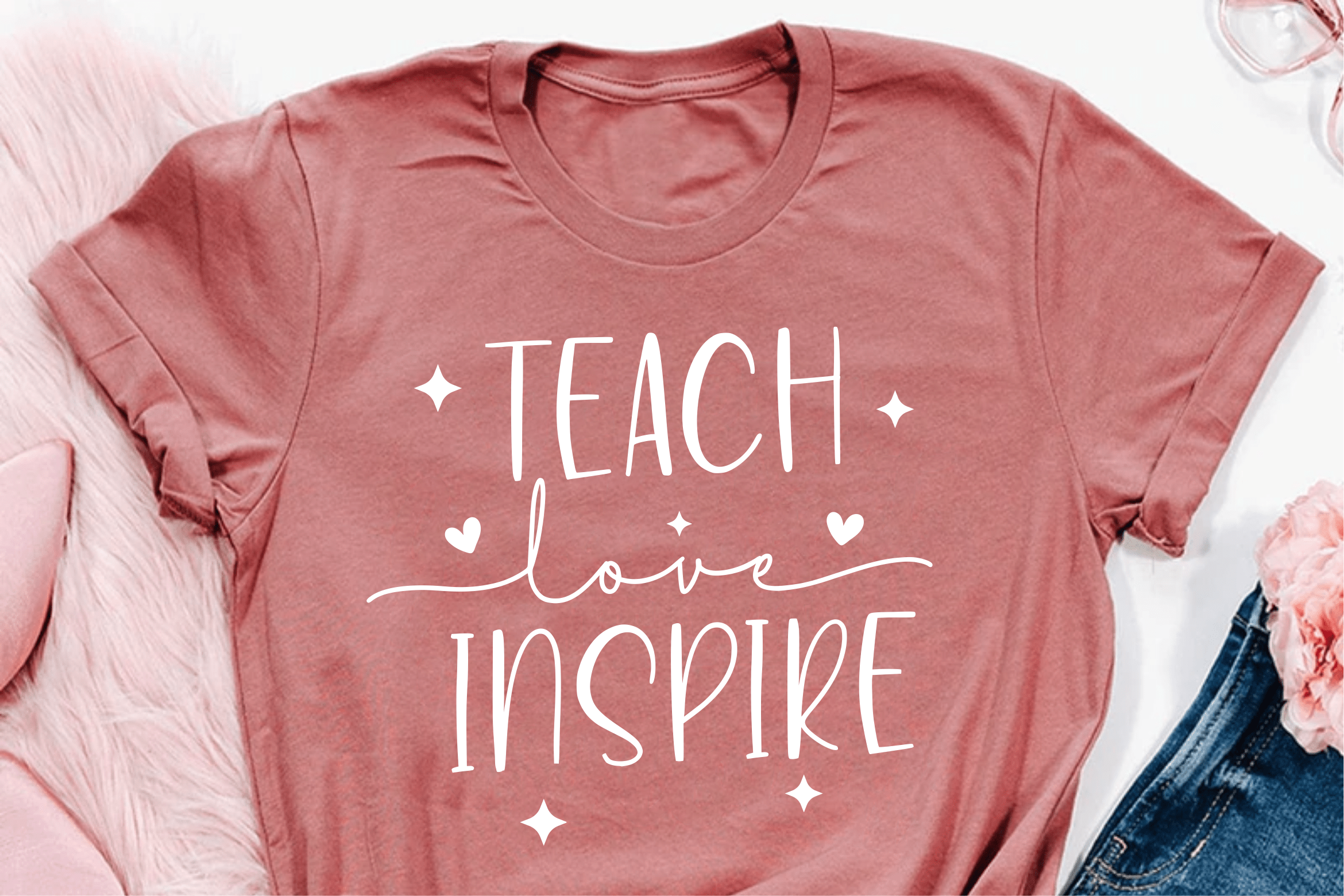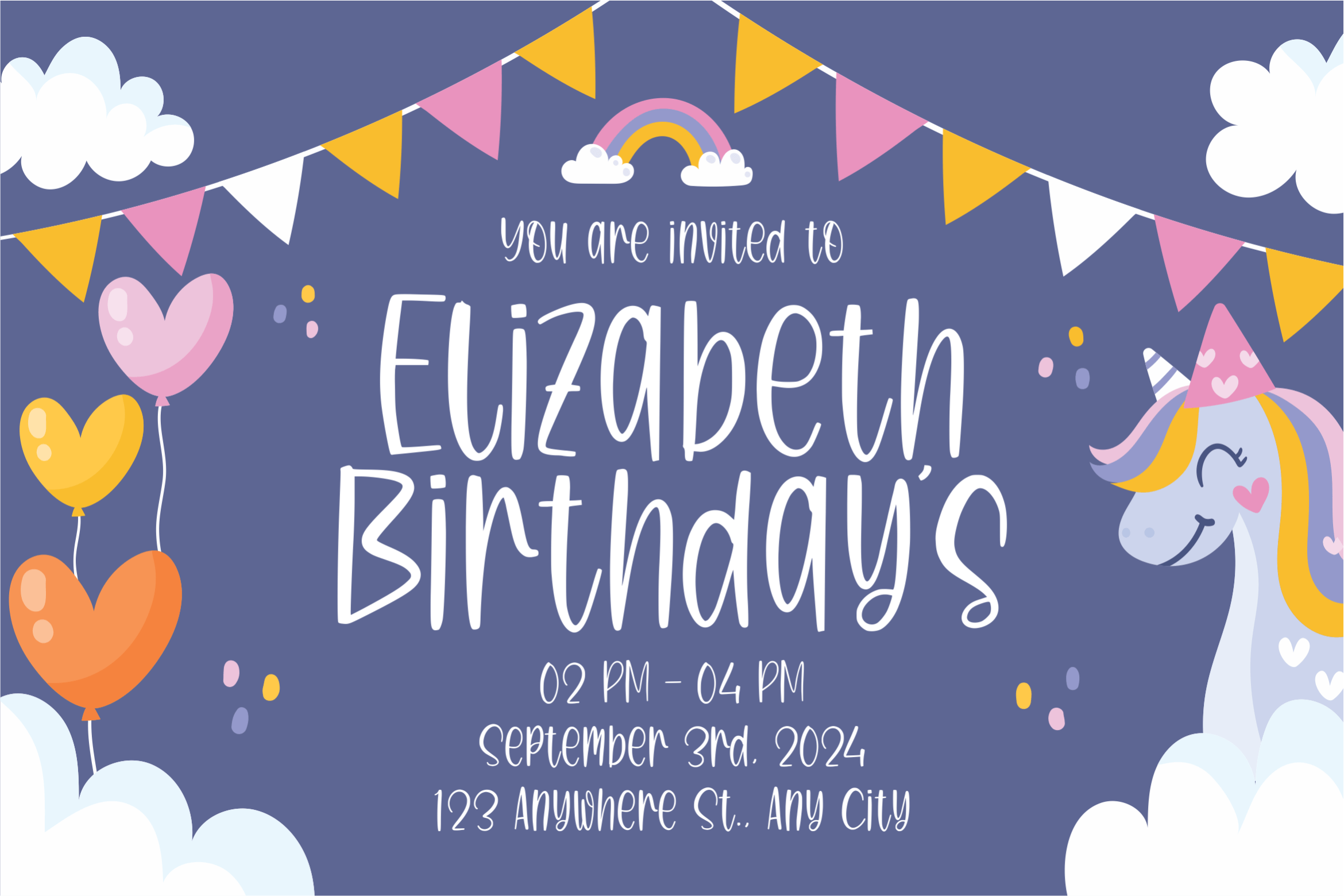
Unicorn Twister Display Font
This is a Cute Handwritten Font. Unicorn Twister is perfect for product packaging, branding project, megazine, social media, wedding, or just used to express words above the background. This font includes OTF & TTF, Unicorn Twister also multilingual support.